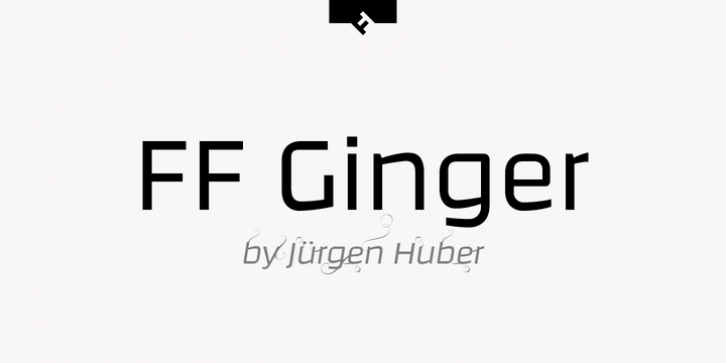
FF Ginger Pro downloadDesigner: Jürgen Huber
Publisher: FontFont
German type designer Jürgen Huber created this display and sans FontFont in 2002.
The family has 5 weights, ranging from Light to Regular (including italics) and is ideally suited for advertising and packaging, editorial and publishing, poster and billboards, small text as well as software and gaming.
FF Ginger provides advanced typographical support with features such as ligatures, alternate characters, case-sensitive forms, fractions, super- and subscript characters, and stylistic alternates.
It comes with a complete range of figure set options – oldstyle and lining figures, each in tabular and proportional widths.